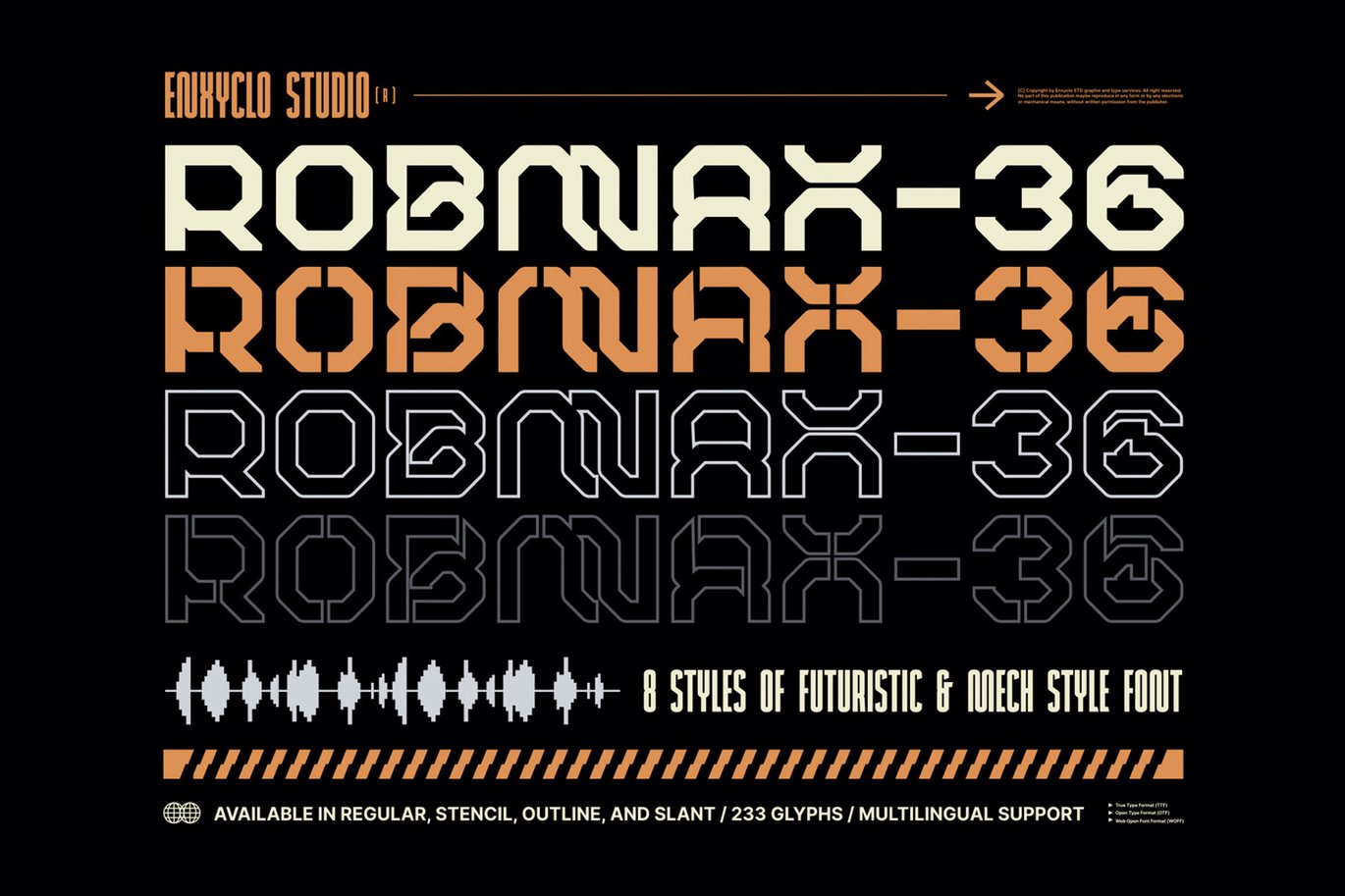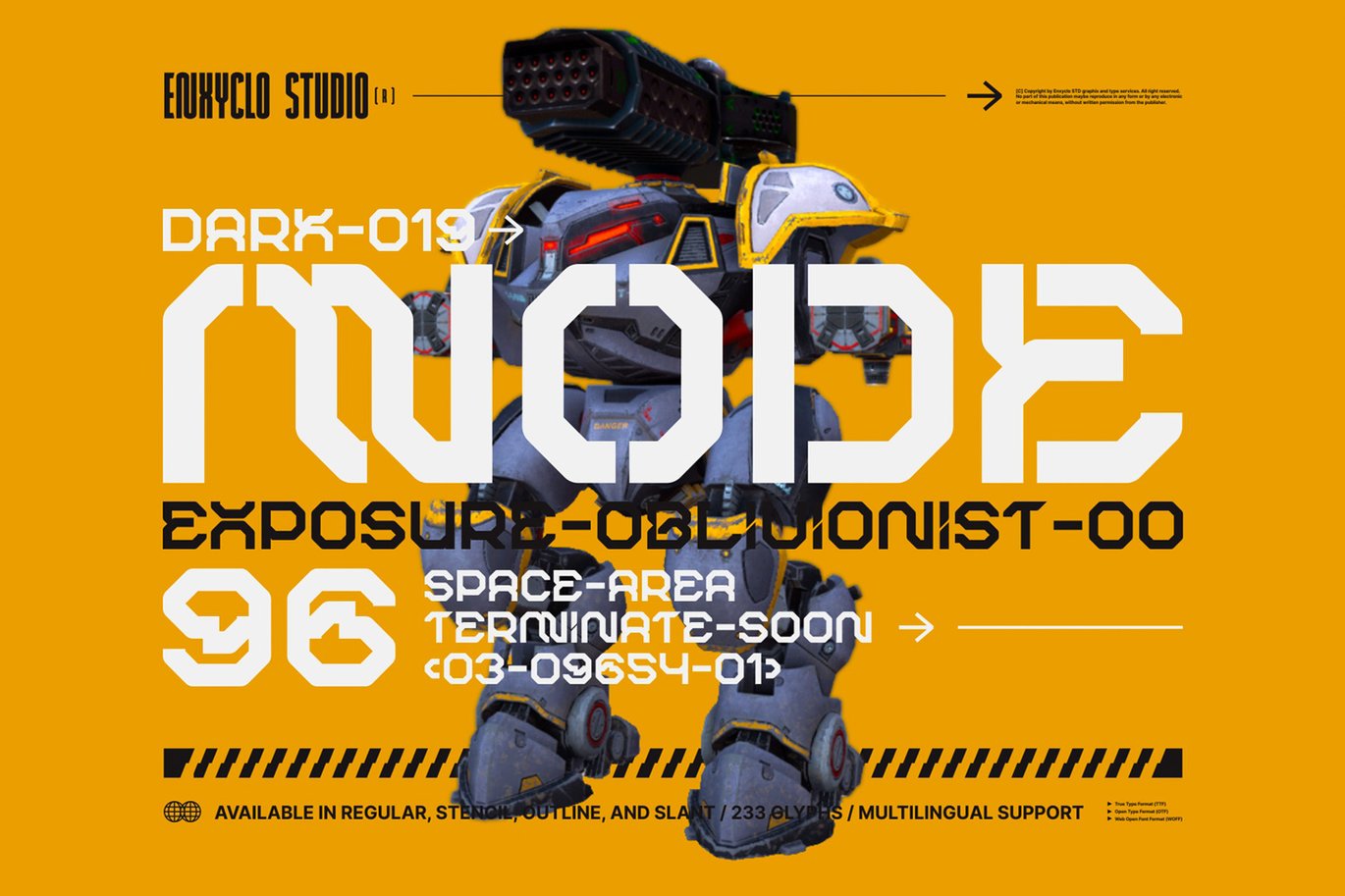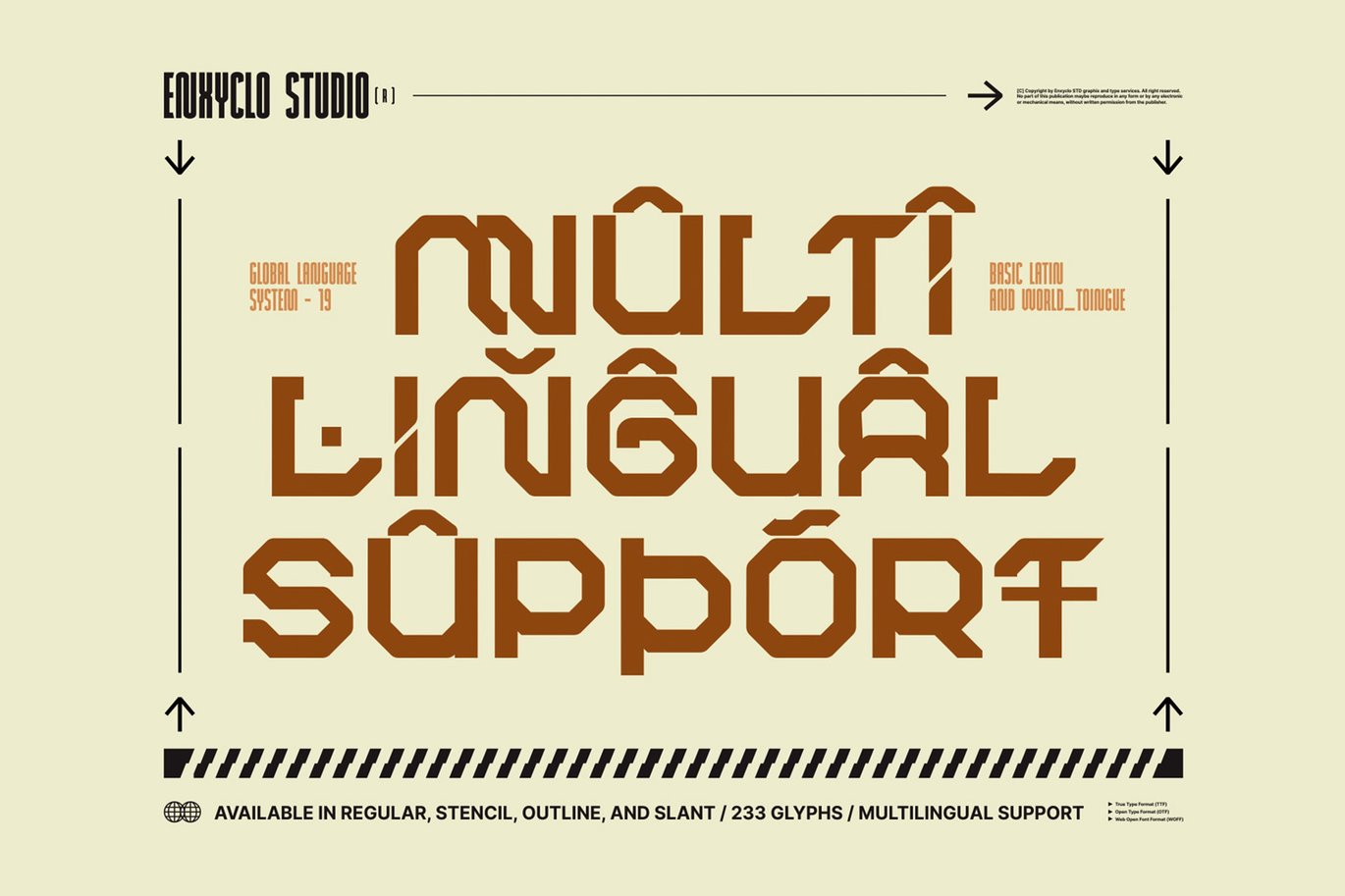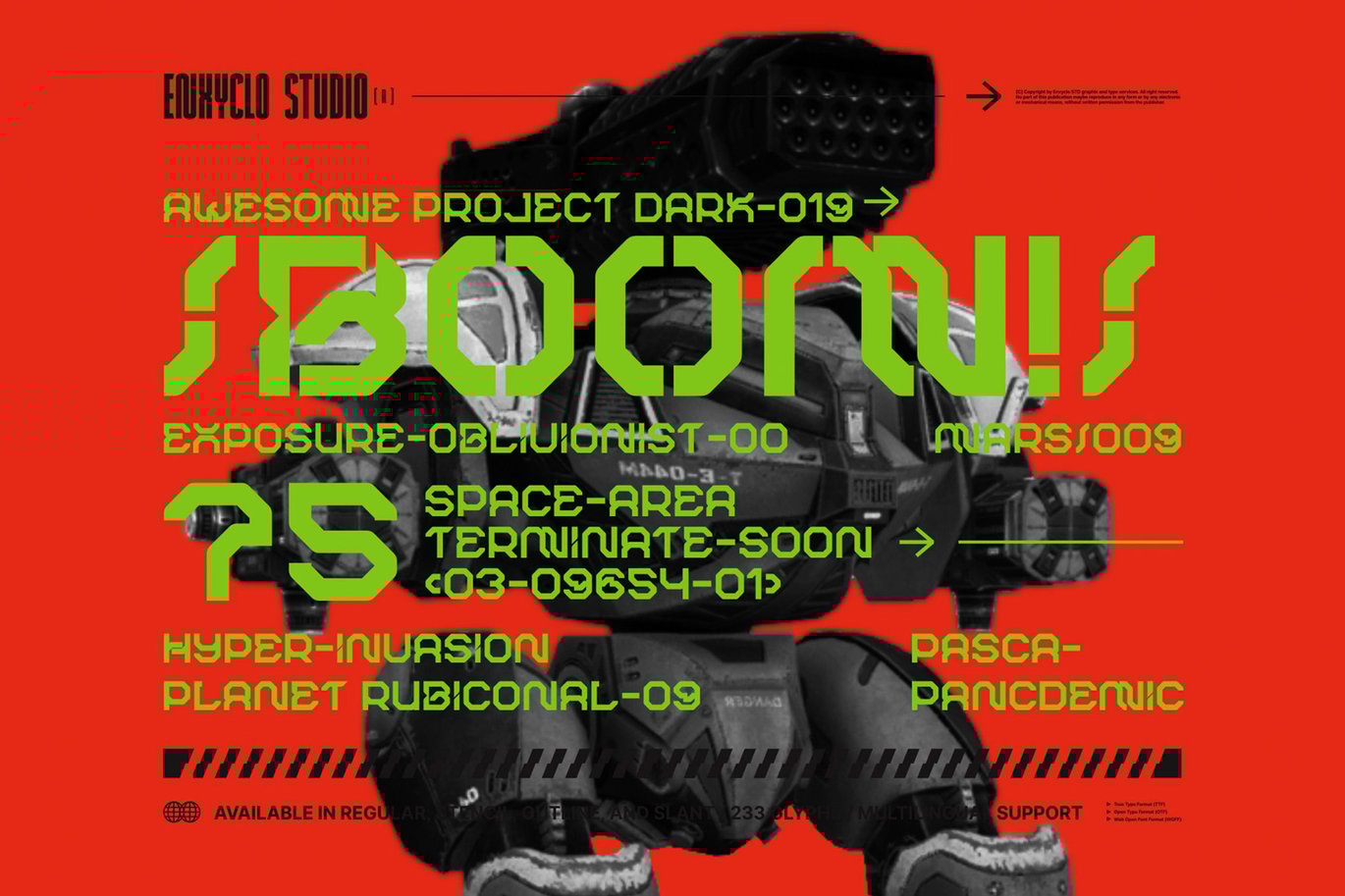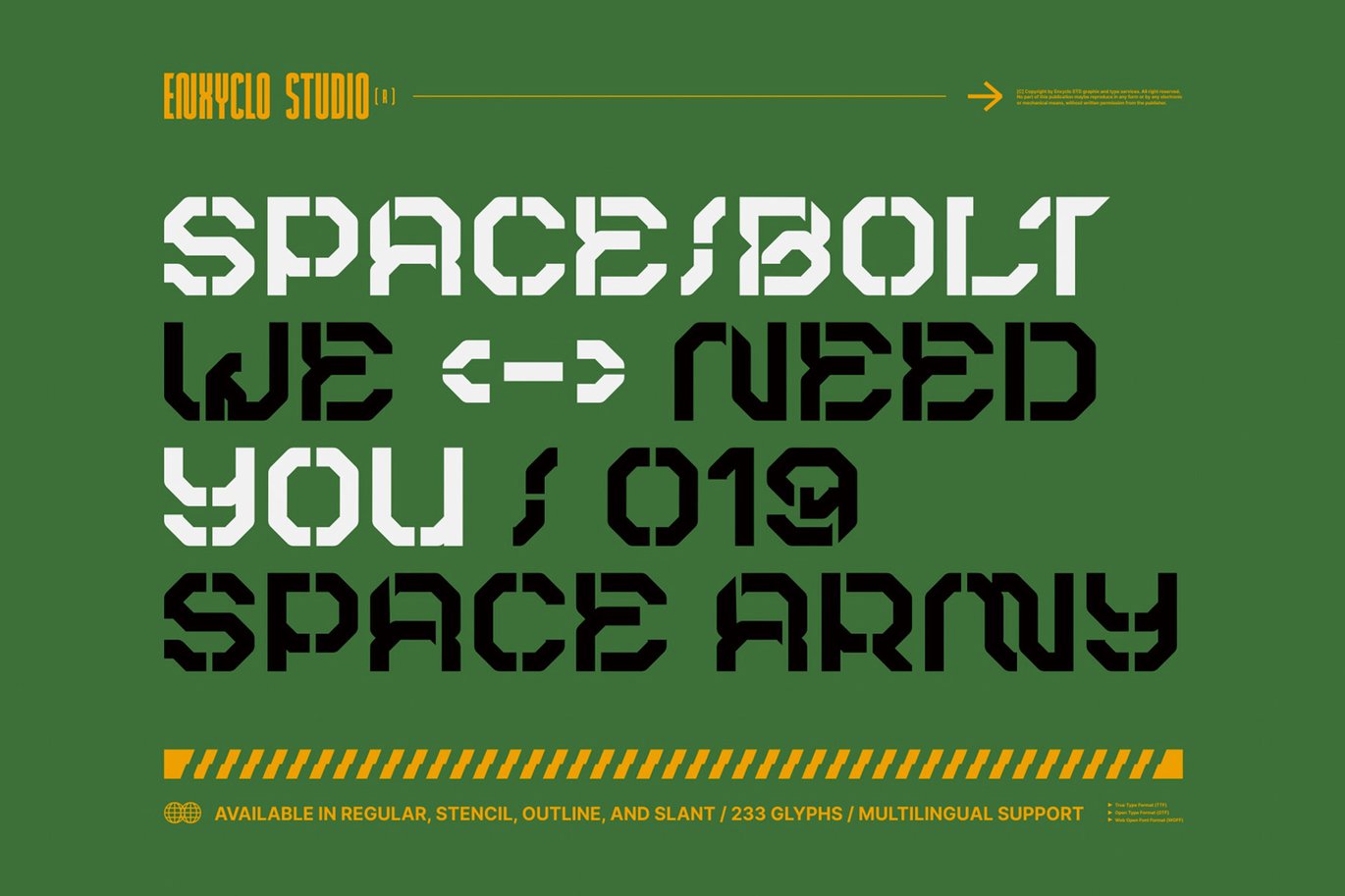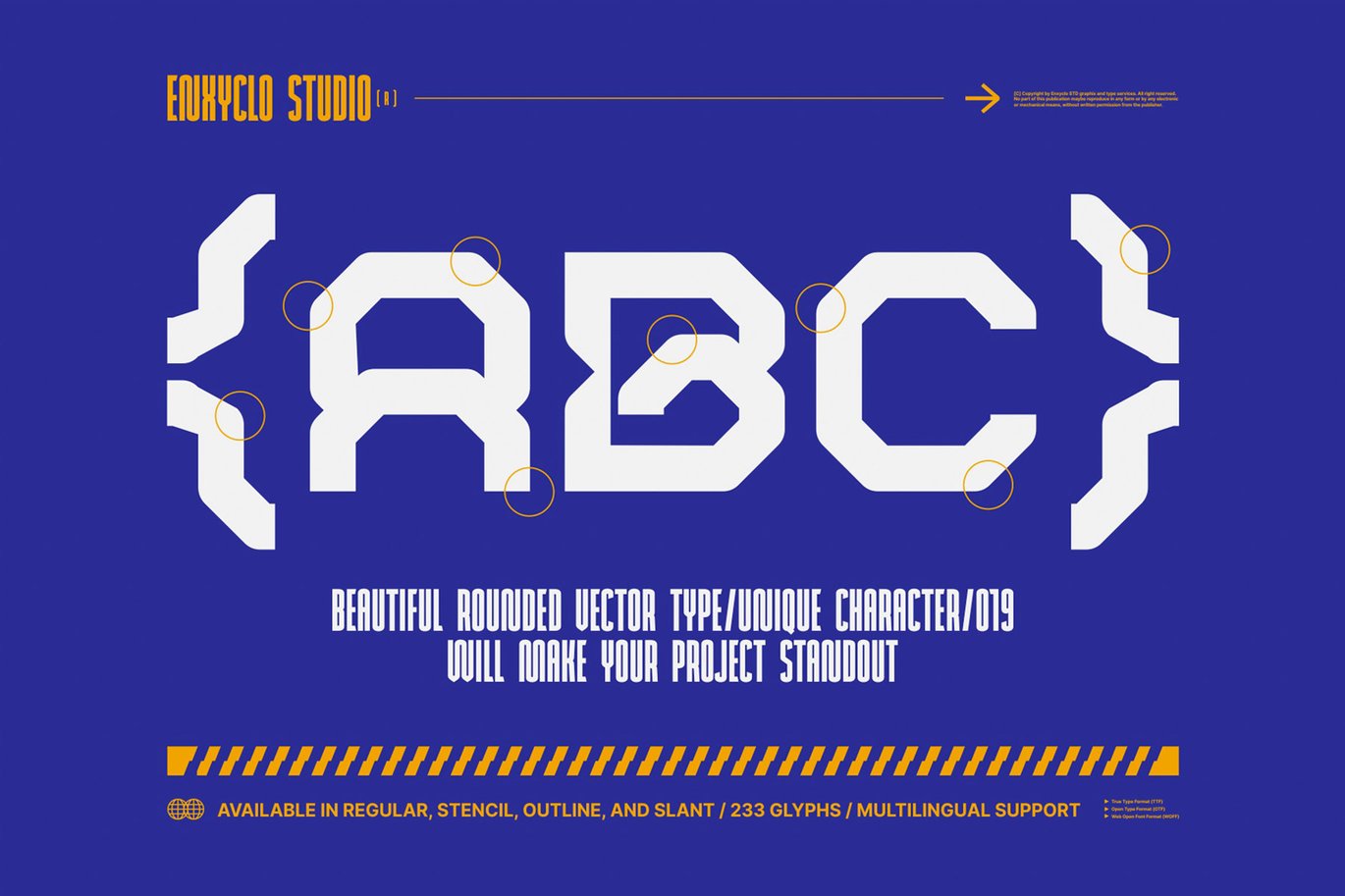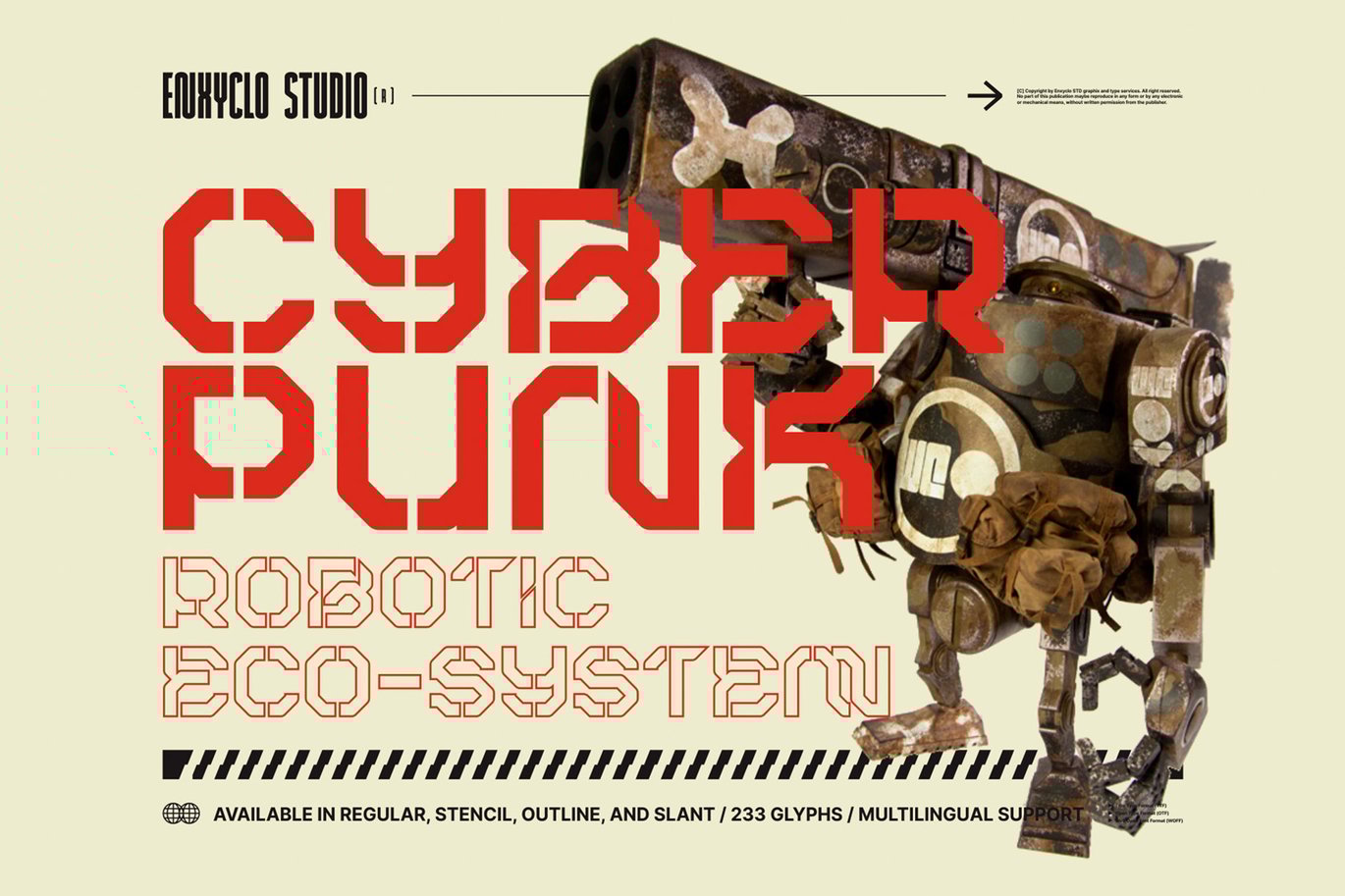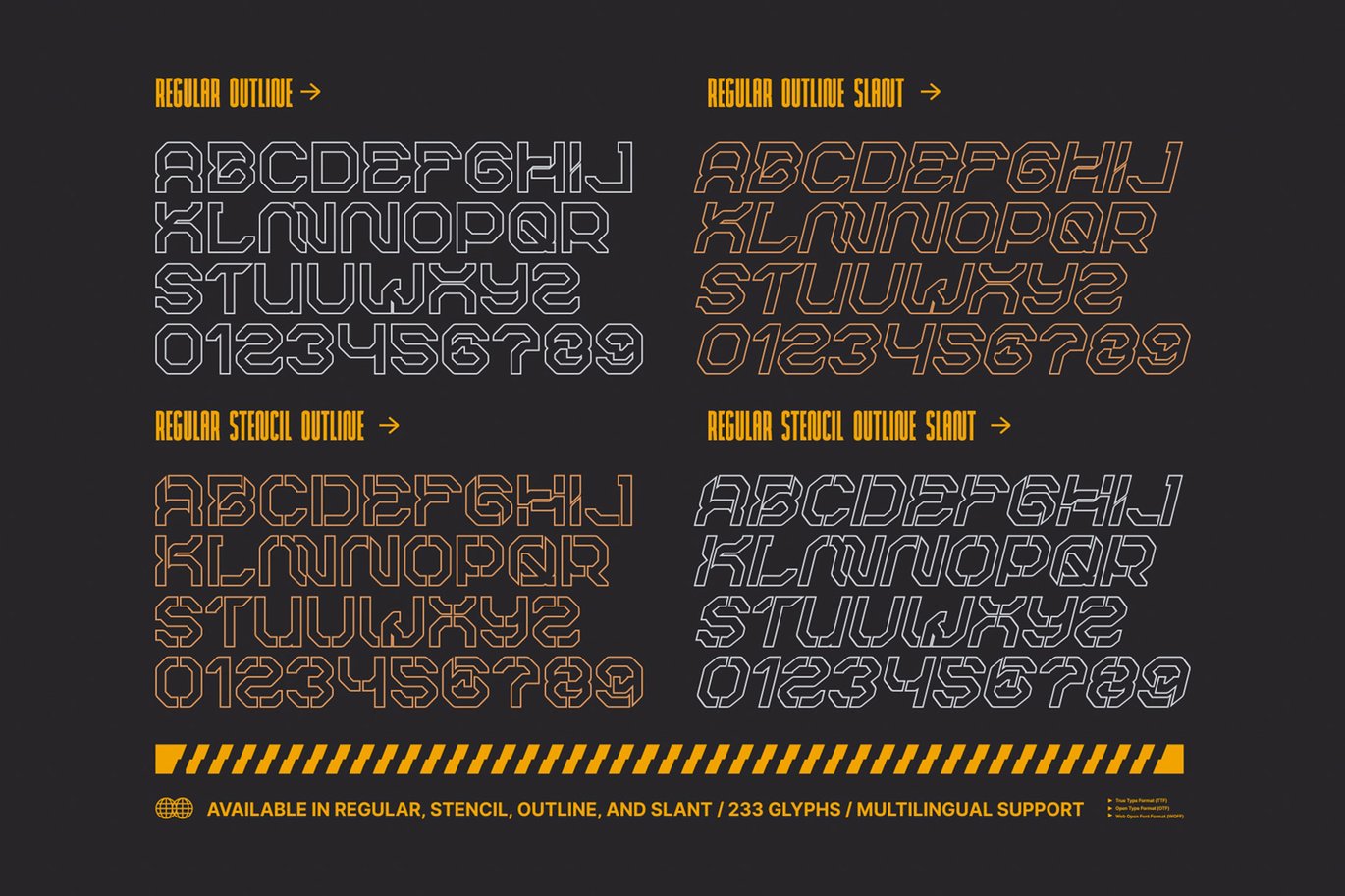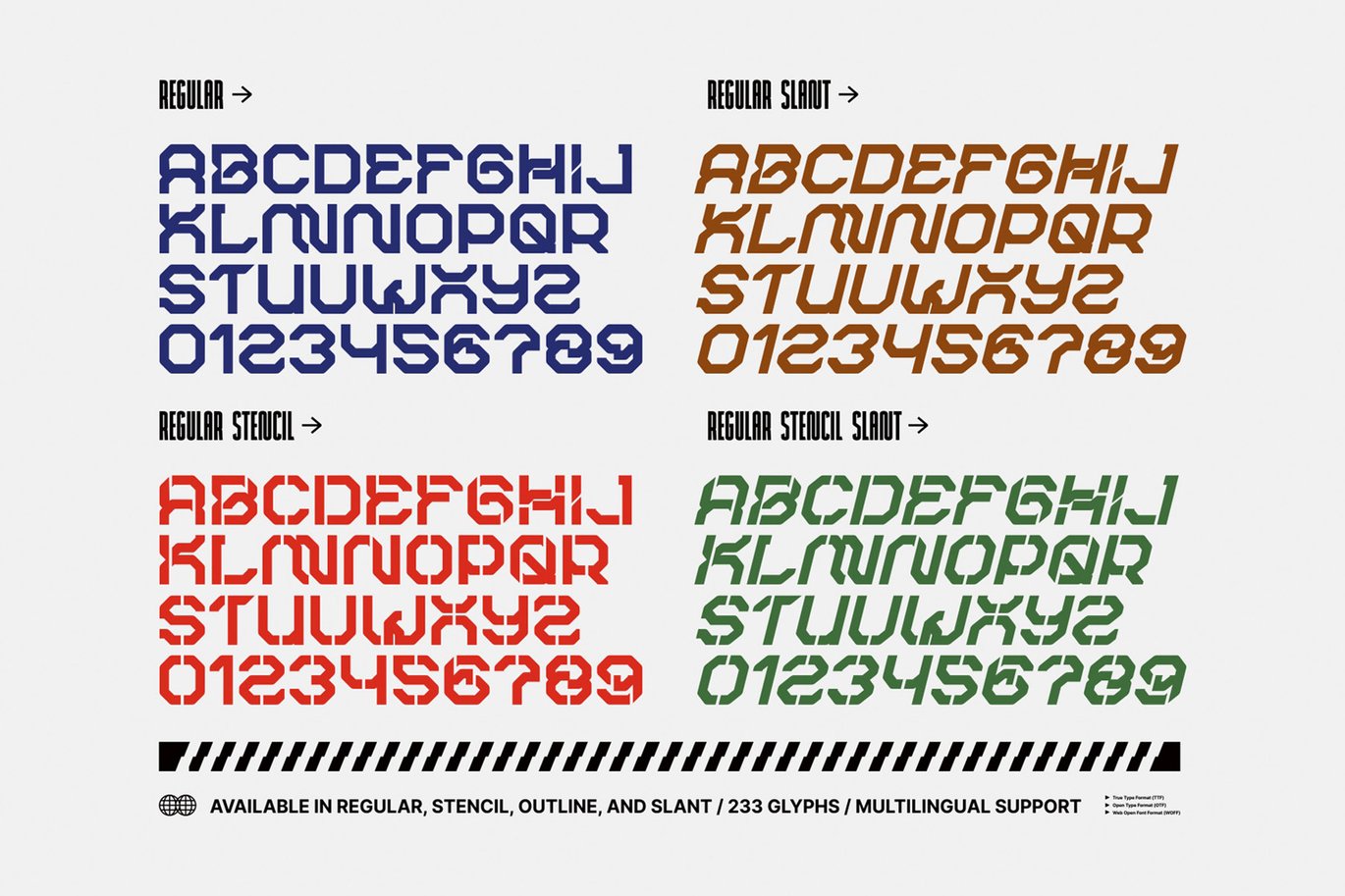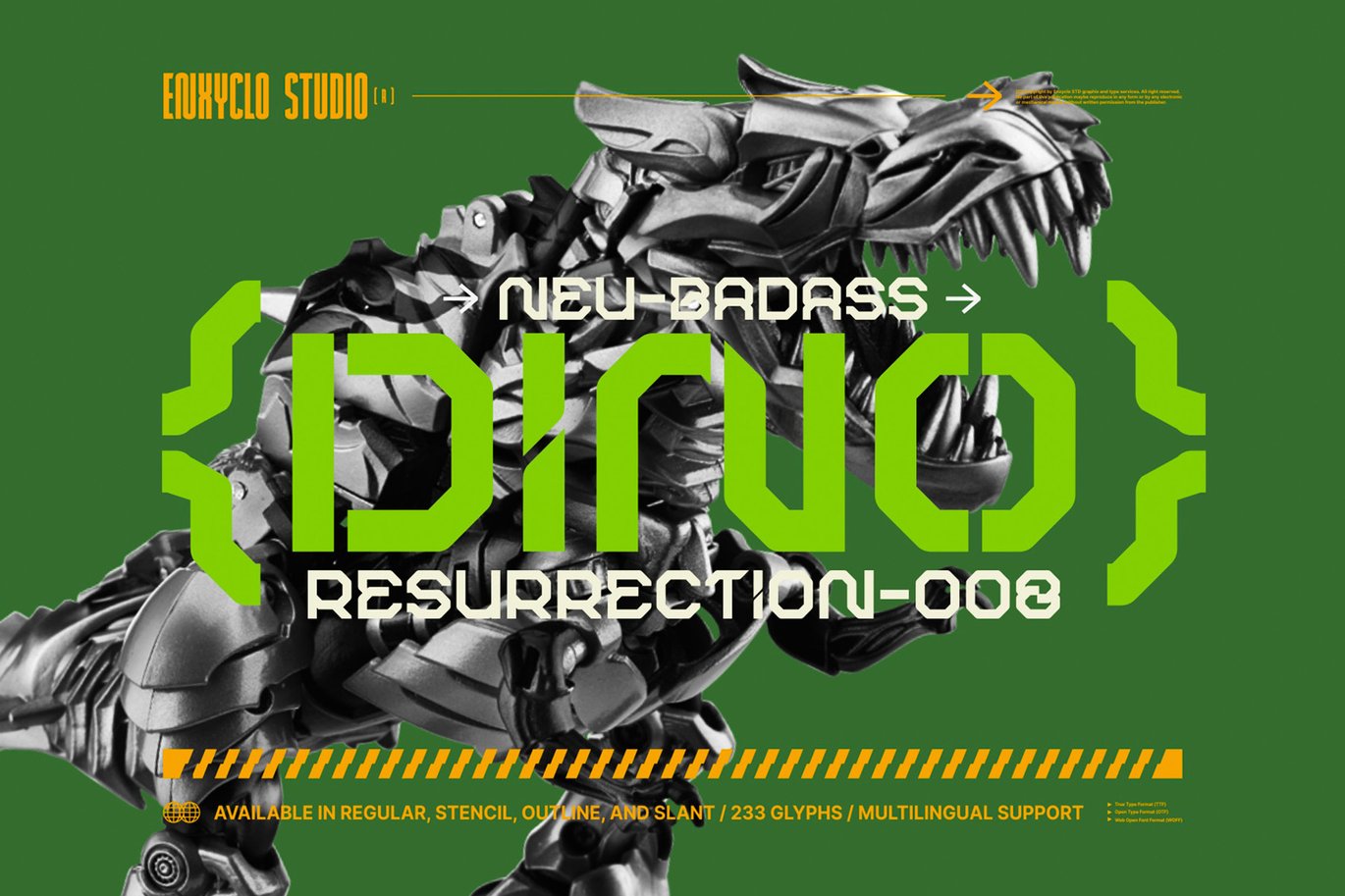
ROBMAX-36 – Futuristic Cyberpunk Mecha Font
ROBMAX-36 is futuristic mecha typeface. Highly inspired by industrial and mecha-robotic vibes. The design of typeface will make your project more powerful and inspiring. With this beautiful futuristic and industrial typeface, absolutely you can make your project stand out from the rest. See the previews above to get some inspiration on how to use them.
- 8 Styles: Regular, Slant, Outline, Outline Slant, Stencil, Stencil Slant, Stencil Outline, Stencil Outline Slant
- Contains 233 Glyphs for Each Style (Total: 1.864 Glyphs)
- Uppercase, Numeral, Punctuation & Symbol